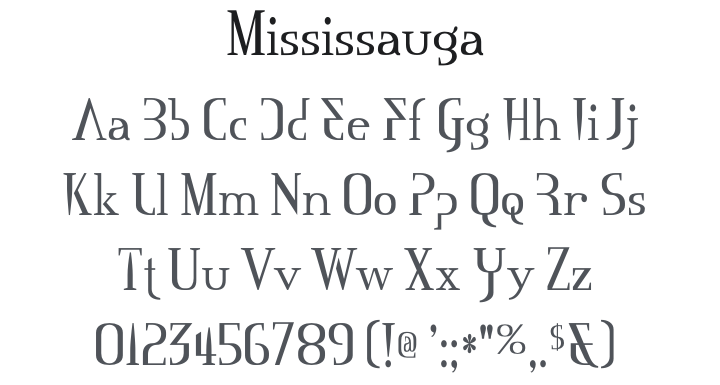
Mississauga Font
About Mississauga
Mississauga is a tall, narrow serif display typeface with sharp pointed serifs and slim, upright strokes — crisp and elegant with a refined, slightly gothic quality that keeps letterforms legible despite their condensed proportions. Small round dots add delicate contrast to the pointed structure. Perfect for editorial headlines, literary branding, book covers, formal event invitations, and any design needing a poised, sharp-edged classical presence.